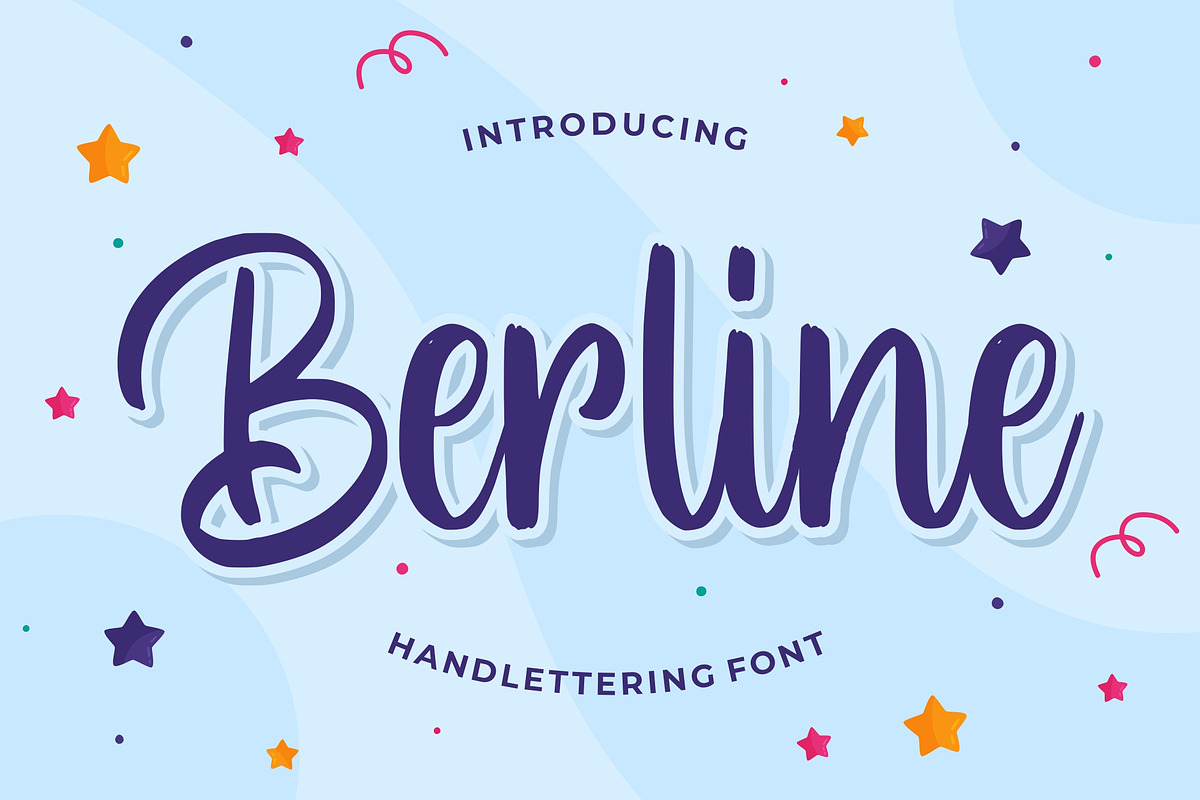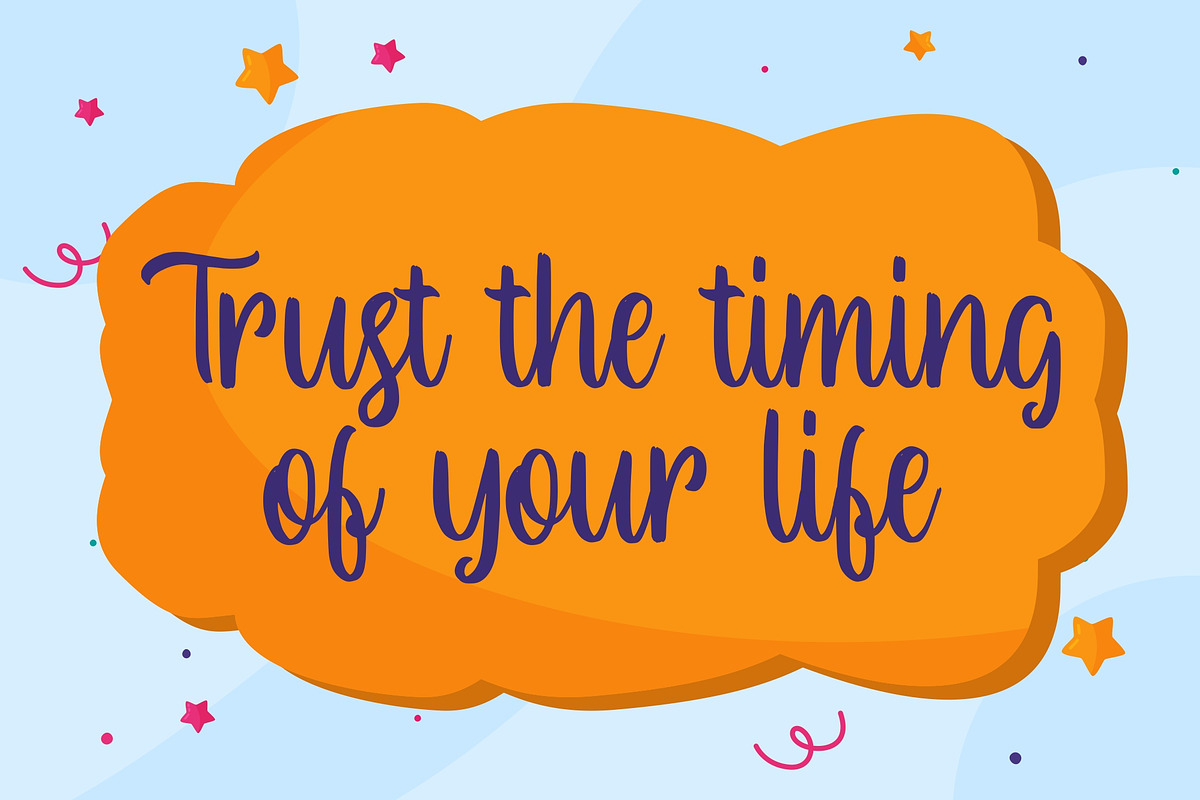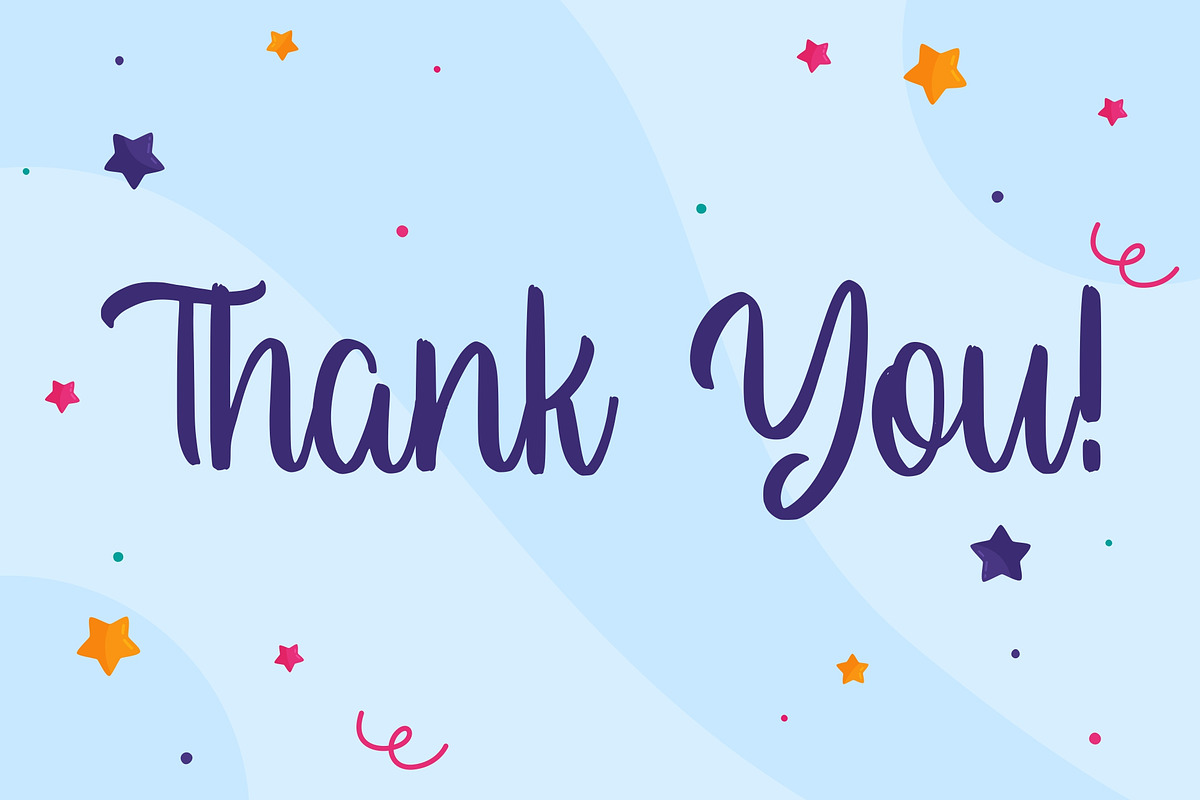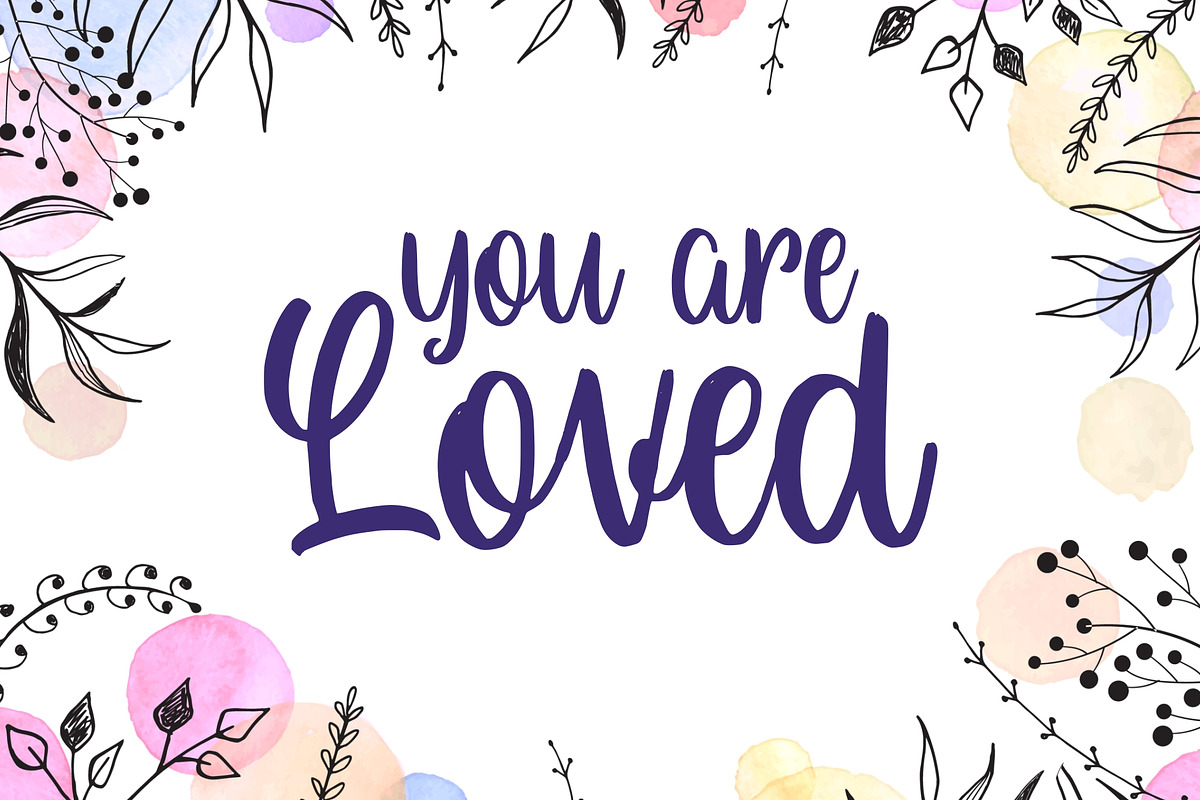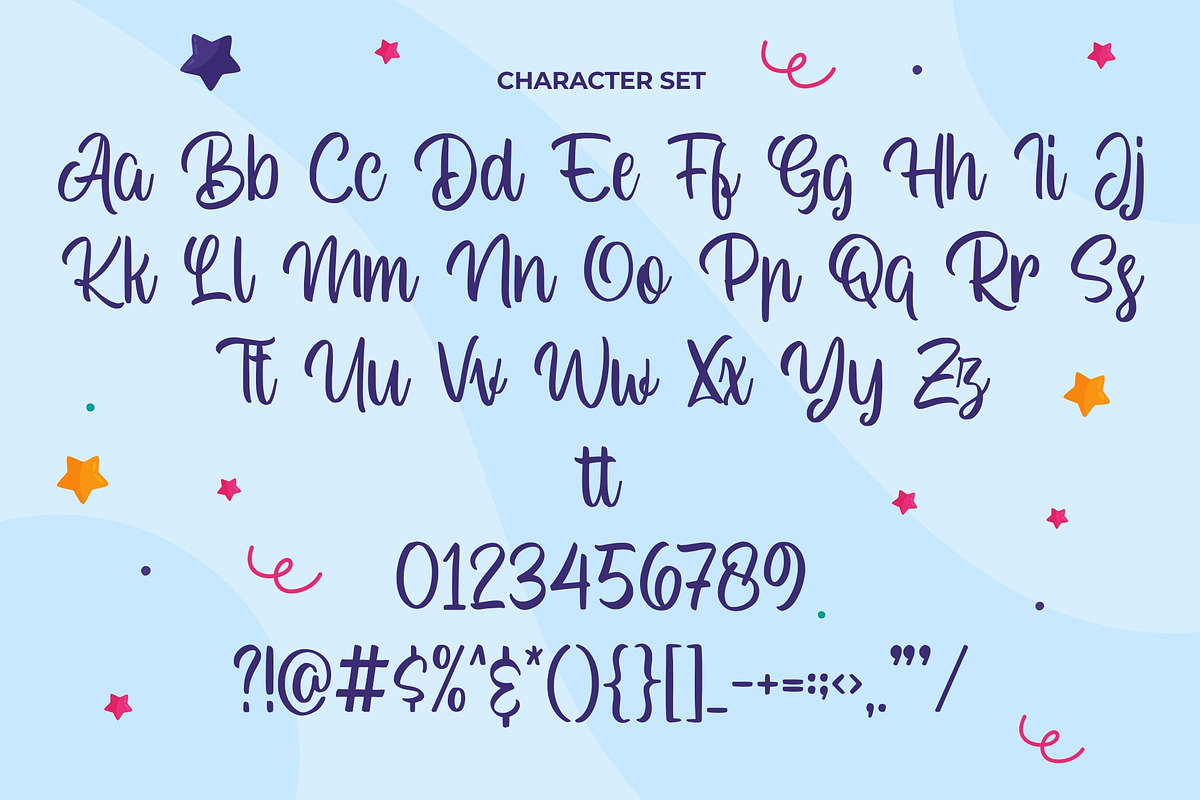
Berline - Handlettering Font
Produly Present Berline - Handlettering Font
Berline - Handlettering Font make from handlettering ideas in typeface. This font includes full of Alphabetical glyphs, Numerals, and punctuation. This is so perfect for invitations, monograms, wedding, fashion, branding, label, handlettering or logotype.
Very great for branding, logotype, handletteing, invitations, or fashion branding.
- This font includes full of Alphabetical glyphs, Numerals, and punctuation.
Berline - Handlettering Font by Good Java Studio fits naturally into Branding, posters, packaging, typography.